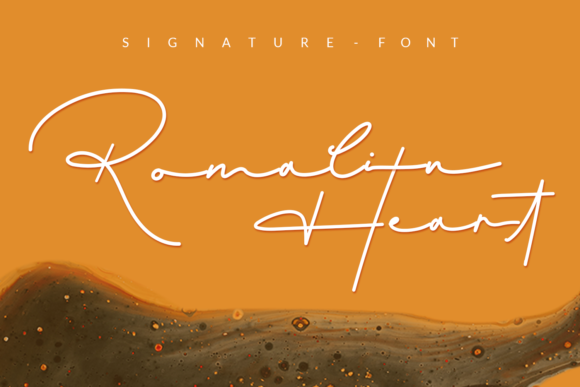
Journey to the heart of Italy with Romalin Heart, a script font that exudes elegance and authenticity like a fine Italian wine. Each letter, a brushstroke of art, is crafted with the precision of an Italian artisan, capturing the essence of romance and grace. Immerse yourself in the charm of the Italian countryside, where olive groves whisper secrets and vineyards paint the hillsides with vibrant hues. Let Romalin Heart be your canvas, transforming words into heartfelt expressions that resonate with depth and beauty.
Discover the allure of Romalin Heart, a script font that mirrors the charm of Italy's countryside—a symphony of rolling hills, blooming vineyards, and sun-kissed piazzas. Its graceful curves and delicate flourishes mimic the elegance of calligraphy, evoking the passion and romance of Italian culture. With Romalin Heart, your designs will transcend the ordinary, capturing the spirit of Italy's timeless allure.
Indulge in the sensory delight of Romalin Heart, a font that awakens the senses with its rich texture and vibrant personality. Inspired by the beauty of Tuscany, each character dances across the page like a brushstroke from an artist's palette. Feel the warmth of the Italian sun, the aroma of fresh-brewed espresso, and the melody of a mandolin serenade as Romalin Heart elevates your designs to new heights of sophistication.
Embrace the elegance of Romalin Heart, a script font that bestows a touch of class and sophistication upon your projects. With its timeless appeal and versatility, Romalin Heart seamlessly adapts to any design style, whether it's a wedding invitation exuding romance, a branding project seeking authenticity, or a social media post radiating charm. Let Romalin Heart be your creative muse, transforming the mundane into the magnificent.
Unleash the creative potential within you with Romalin Heart, a font that ignites your imagination and transforms your designs into captivating works of art. Experience the joy of crafting designs that exude elegance, authenticity, and timeless beauty. Romalin Heart is more than just a font; it's an invitation to embark on a creative journey where artistry and inspiration intertwine.